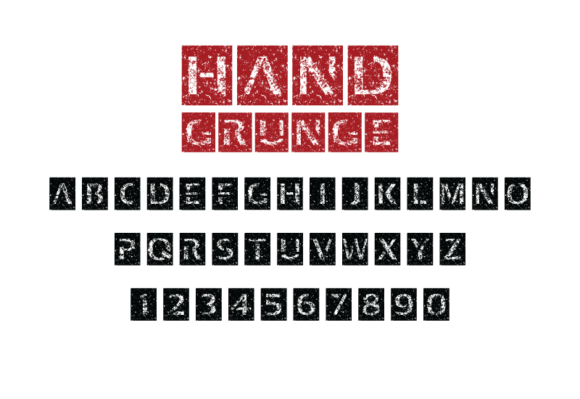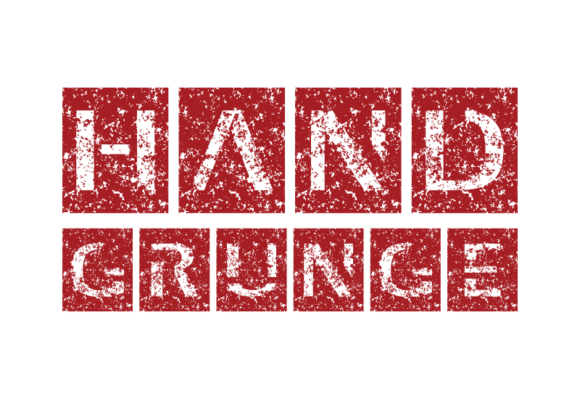
Unleash Your Creativity with Hand Grunge Font: A Designer’s Dream
Are you tired of using the same old fonts in your design projects? Do you want to add a touch of raw, edgy aesthetic to your creations? Look no further than the Hand Grunge Font. This unique font is perfect for designers and crafters who want to add character and personality to their work.
What is Hand Grunge Font?
Hand Grunge Font is a distinctive font that exudes a raw, edgy aesthetic. Its clean lines and bold strokes create a striking visual impact, while the subtle grunge texture adds a touch of authenticity. The font is designed to give your designs a unique and rugged look that’s perfect for a variety of projects.
Key Features of Hand Grunge Font
- Clean Lines and Bold Strokes: The font features clean lines and bold strokes that create a distinctive visual impact.
- Subtle Grunge Texture: The subtle grunge texture adds a touch of authenticity to the font, giving it a raw, edgy aesthetic.
- High Level of Detail: All characters have the same level of detail as enlarged letters on top, ensuring that your designs look sharp and professional.
- Versatility: You can apply Hand Grunge Font to any project, from branding and advertising to packaging and more.
Why Choose Hand Grunge Font?
There are many reasons why designers and crafters choose Hand Grunge Font for their projects. Here are just a few:
- Adds Character to Your Designs: Hand Grunge Font adds a touch of personality and character to your designs, setting them apart from the rest.
- Perfect for Edgy Designs: The font’s raw, edgy aesthetic makes it perfect for designs that require a bold, rugged look.
- Easy to Use: Hand Grunge Font is easy to use and can be applied to a variety of projects, from print to digital.
- High Quality: The font is designed to high standards, ensuring that your designs look professional and polished.
How to Use Hand Grunge Font
Using Hand Grunge Font is easy. Here are a few tips to get you started:
- Pair with Other Fonts: Pair Hand Grunge Font with other fonts to create a unique and interesting contrast.
- Use in Combination with Images: Use Hand Grunge Font in combination with images to add depth and interest to your designs.
Design Project Ideas Using Hand Grunge Font
Hand Grunge Font is versatile and can be used in a variety of design projects. Here are a few ideas to get you started:
- Branding and Logo Design: Use Hand Grunge Font to create a bold and memorable logo for your brand.
- Advertising and Marketing: Use the font in your advertising and marketing materials to add a touch of edginess and personality.
- Packaging Design: Use Hand Grunge Font to create eye-catching packaging that stands out on store shelves.
- Digital Design: Use the font in your digital designs, such as social media graphics and website headers.
Hand Grunge Font is a unique and versatile font that’s perfect for designers and crafters who want to add character and personality to their work. With its clean lines, bold strokes, and subtle grunge texture, this font is sure to make a statement in any design project. Whether you’re working on branding, advertising, packaging, or digital design, Hand Grunge Font is a great choice.